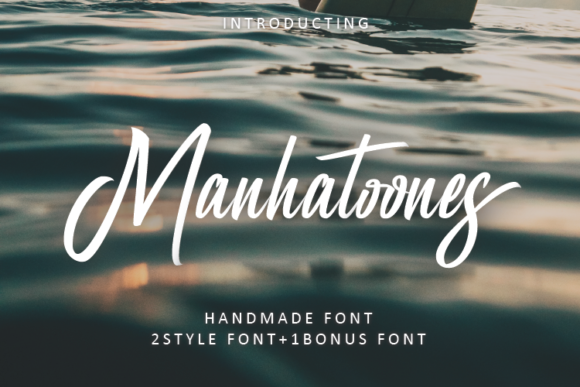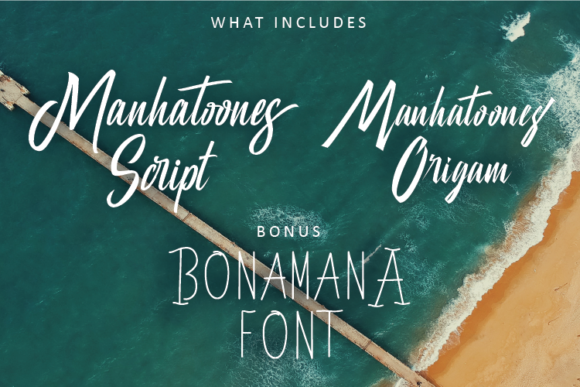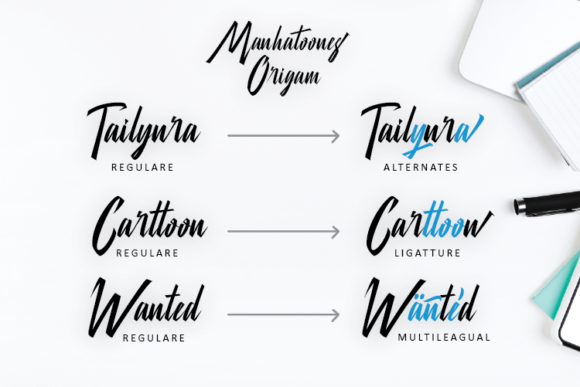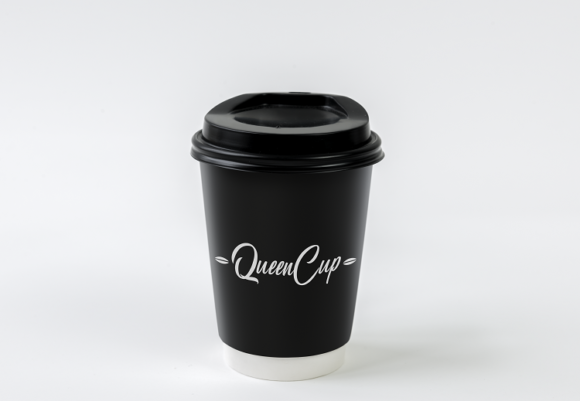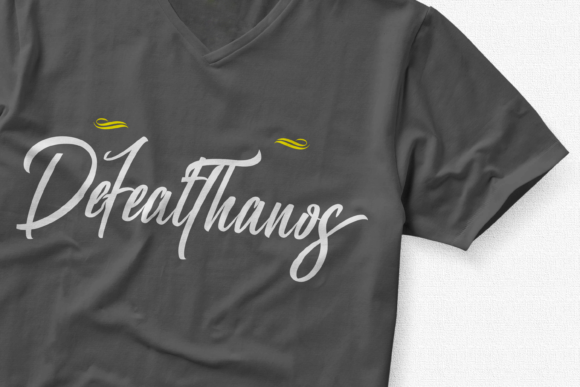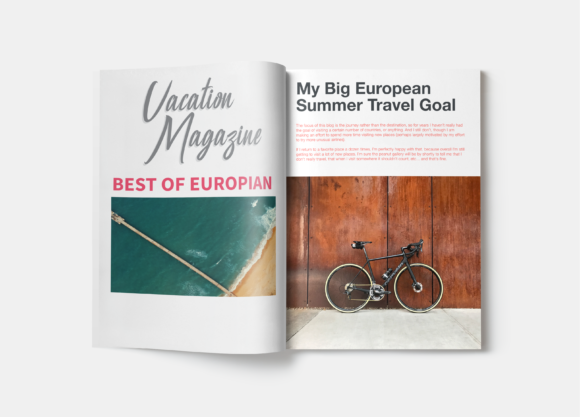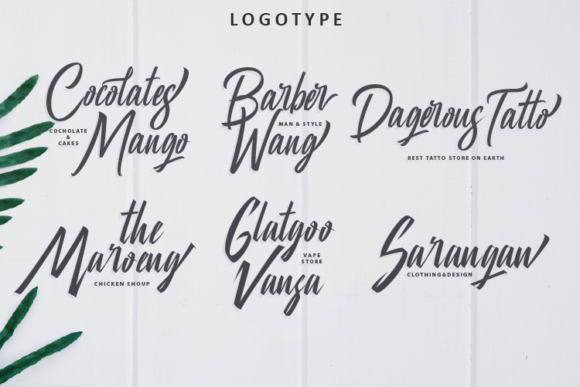
Manhatoone Script Font
About Manhatoone Script Font
The Manhatoon is a casual script font inspired by pop cultures and urban fashion. It’s great for multiple designing needs such as logotypes, printed quotes, invitations, cards, product packaging, and more!